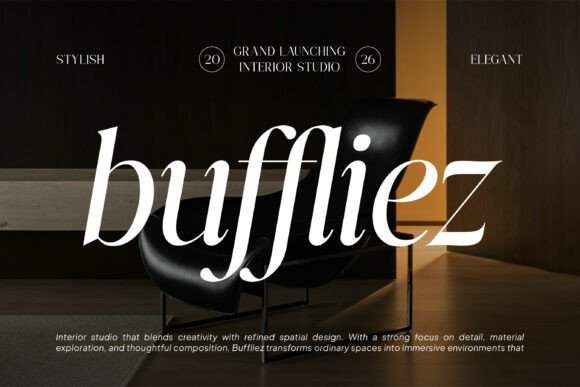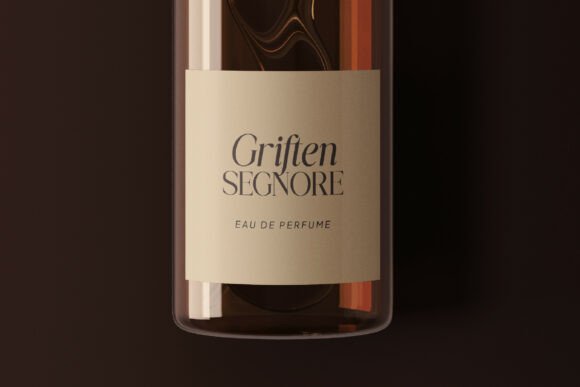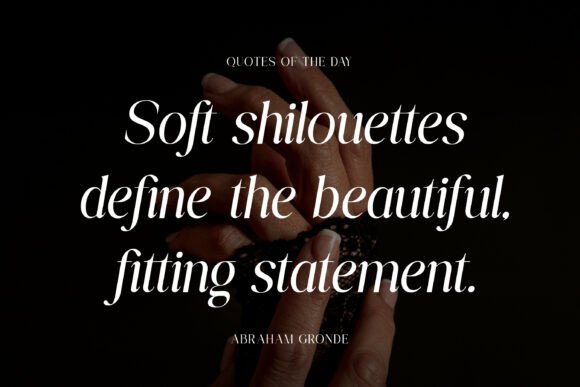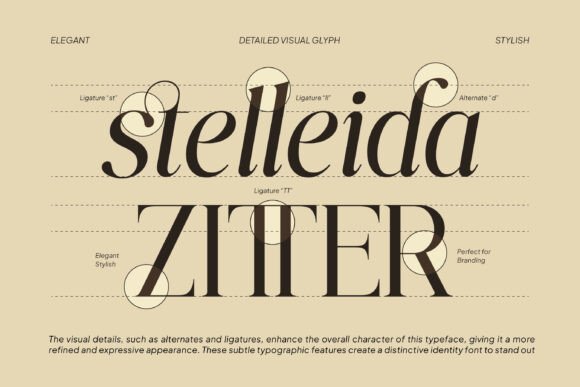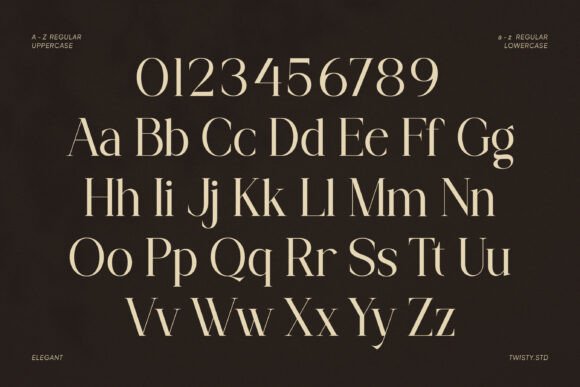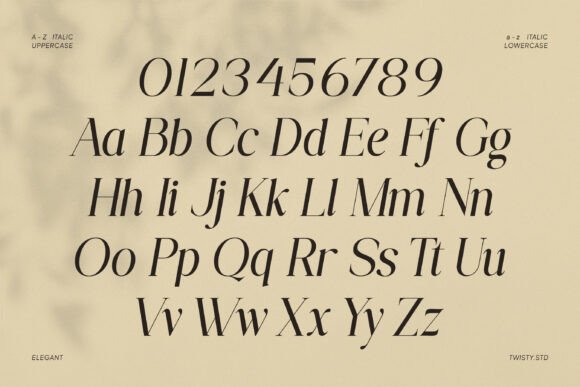
Introduction to Great Respect Font
Have you ever stared at a blank canvas, waiting for the perfect font to bring your creative project to life? That’s exactly what happened to many designers when they discovered the Great Respect Font. Its elegant and stylish duo serif design has been a game-changer for typography enthusiasts, offering a level of refinement and sophistication that’s hard to find in modern design resources.
As a valuable design asset, the Great Respect Font is not just about aesthetics; it’s about creating a professional and polished typographic appearance that elevates any project. With its smooth curves and carefully crafted letterforms, this font is a must-have for designers looking to take their work to the next level. Whether you’re working on a high-quality design project or simply need a reliable font for your creative endeavors, the Great Respect Font is an excellent choice.
Key Features of Great Respect Font
- High-quality design resource for creative projects, perfect for those seeking a unique touch.
- Unique characteristics and subtle nuances make it an excellent choice for designers seeking a distinctive look.
Honest Review: Great Respect Font
The transparent background of the font makes it easy to use on any background image or color scheme. I was able to integrate it seamlessly into my design without any issues.
- High quality design
- ⚠️ Limited character set (not ideal for extended text)
- ⚠️ Not suitable for large body text
Overall, I’m really happy with the Great Respect Font. It’s a great addition to any design arsenal and I would definitely recommend it to others. If you’re looking for a unique and stylish font for your creative project, I think this one is definitely worth checking out.
The Great Respect Font is a unique and versatile design resource that can elevate your creative project to the next level. With its high-quality and elegant design, it’s perfect for a wide range of applications.
Tips for getting the most out of the Great Respect Font include using it on a transparent background to create a sense of depth and dimension. You can also combine it with other design elements to create a unique and eye-catching look.
Common use cases for the Great Respect Font include:
- Presentation slides
- Document headers
- Web design elements